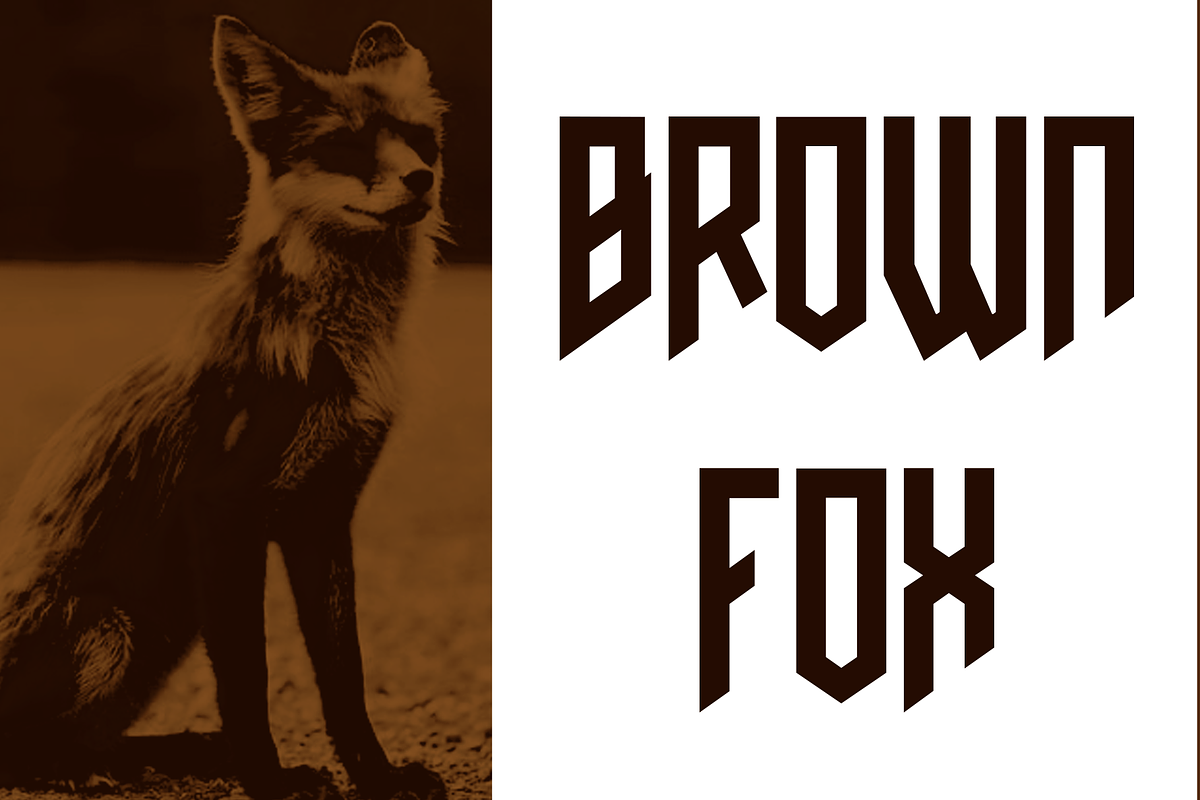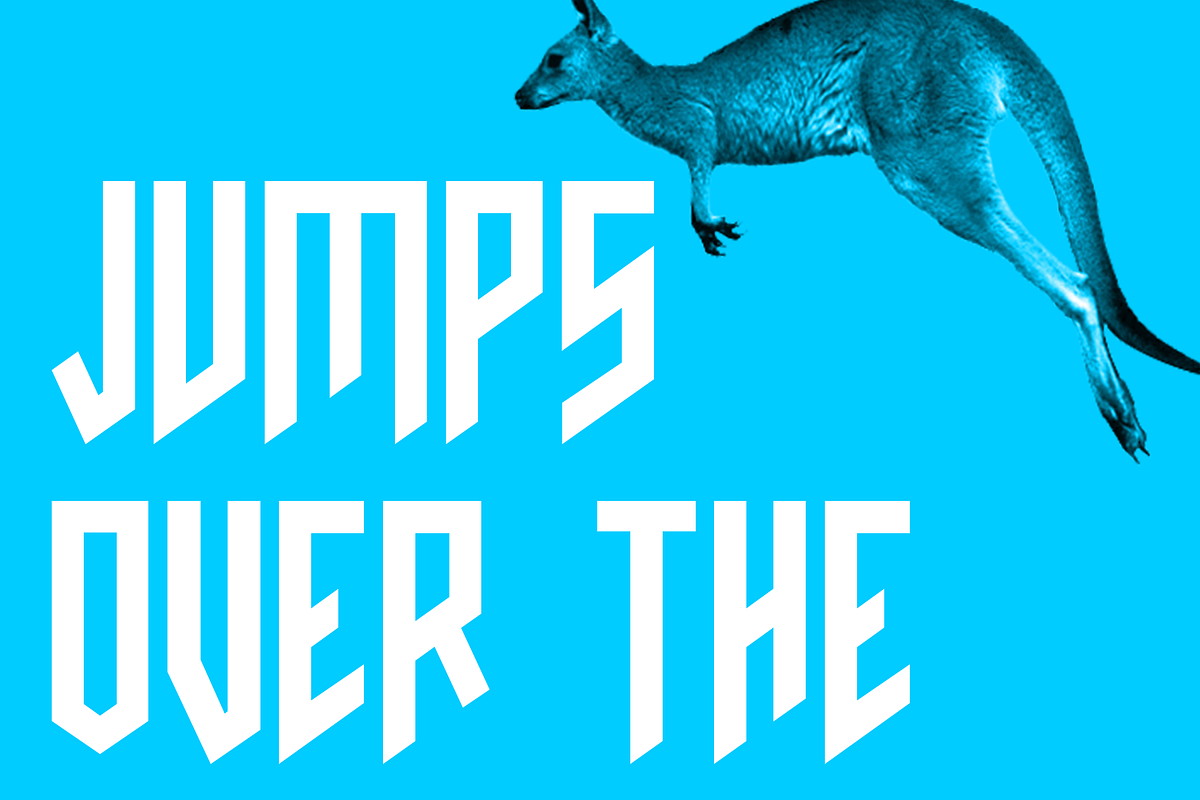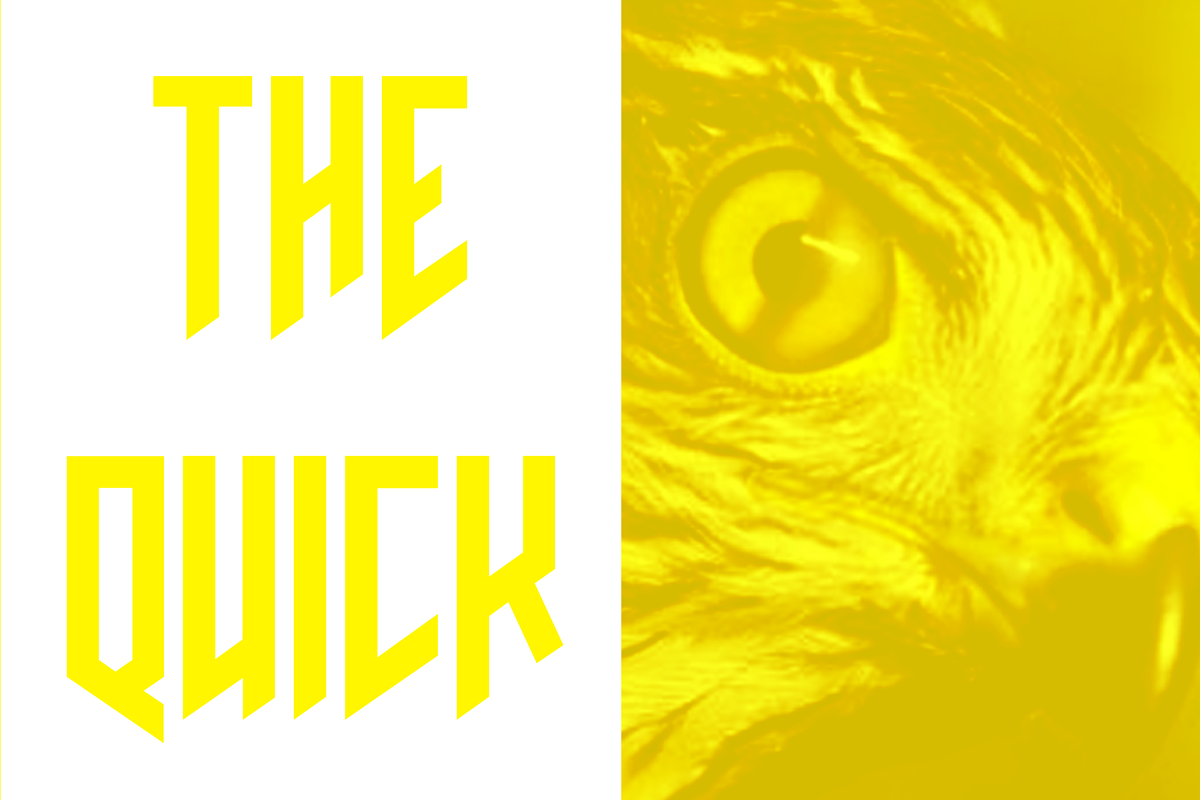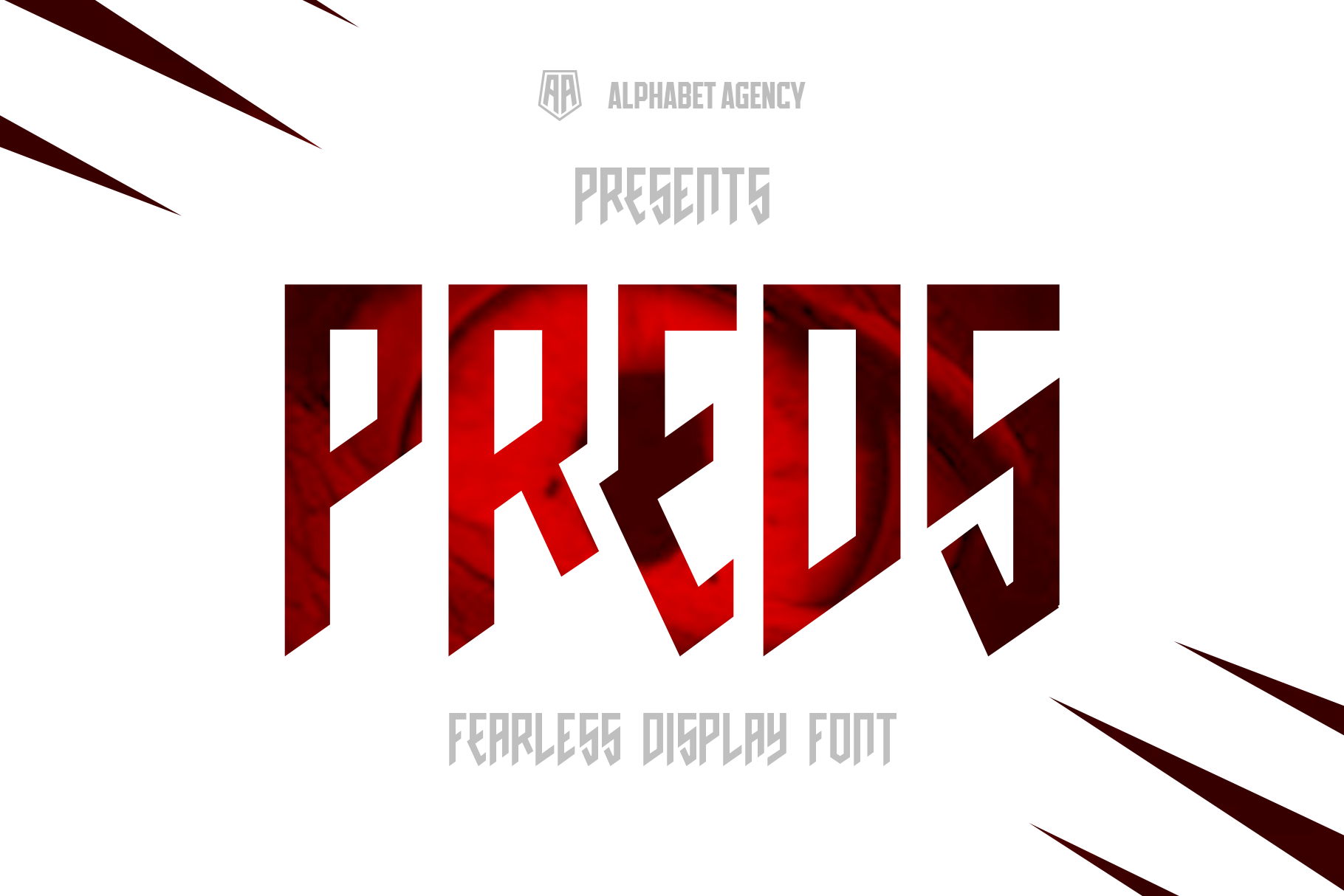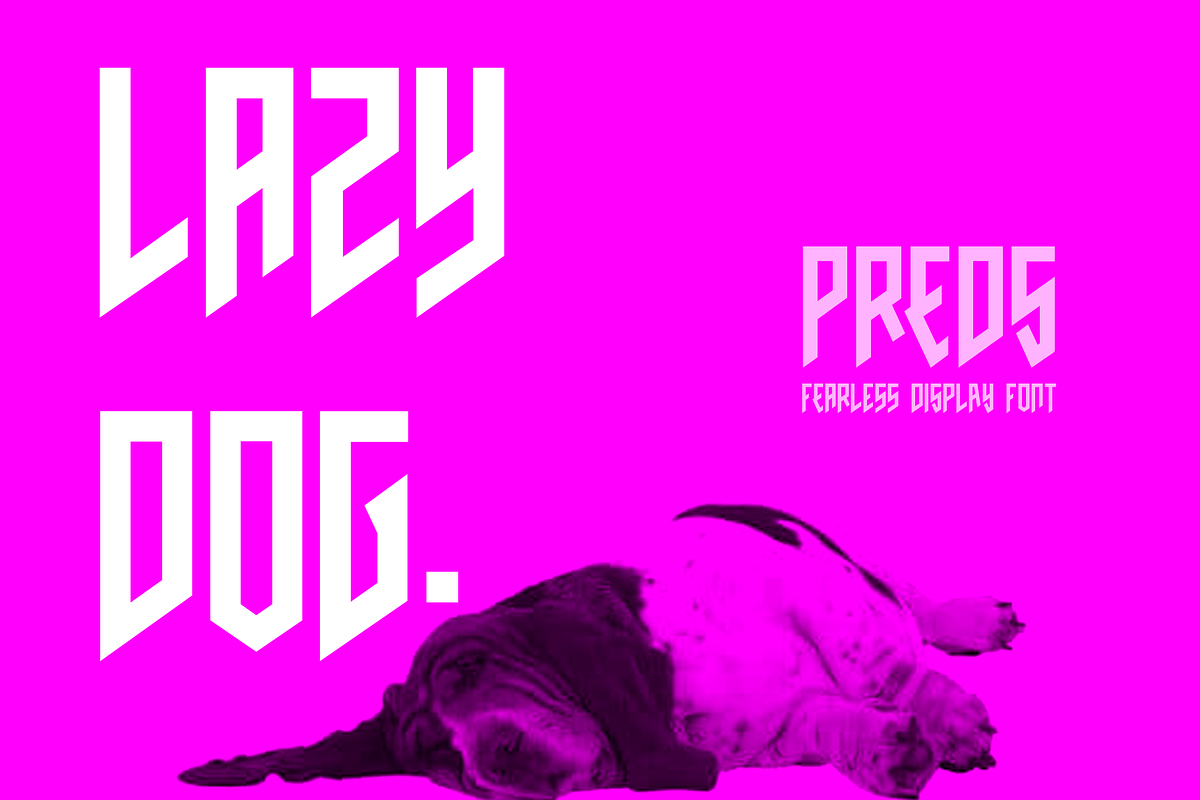
PREDS - FEARLESS DISPLAY FONT
Preds is a fearless display font. The bold letters with sharp and unusual angles grab attention and help draw attention to the letters.